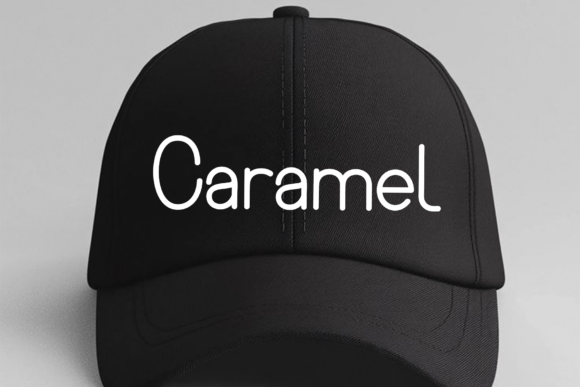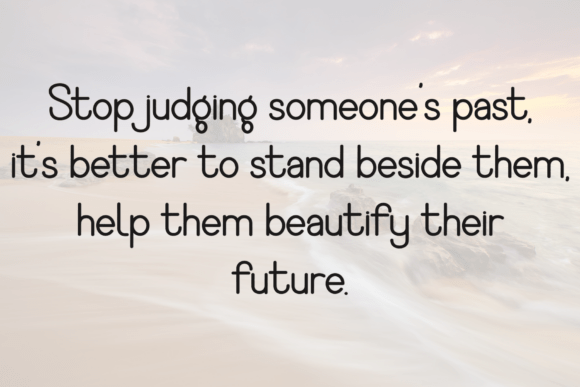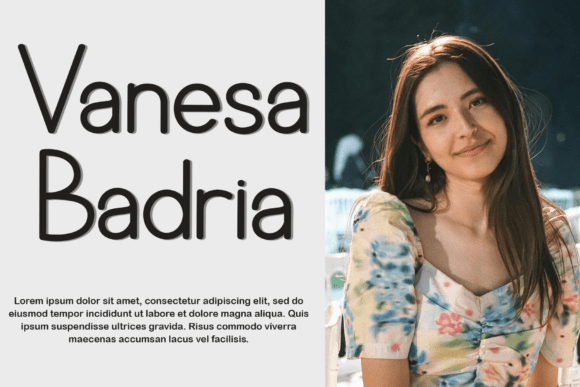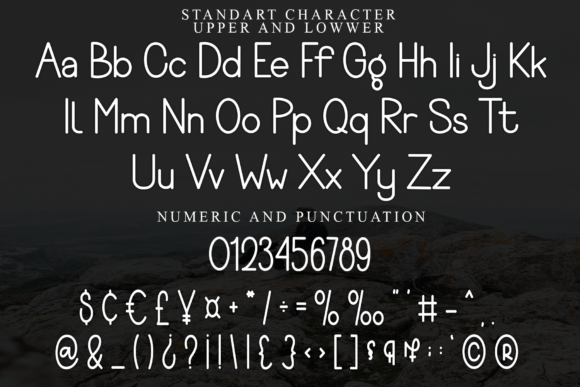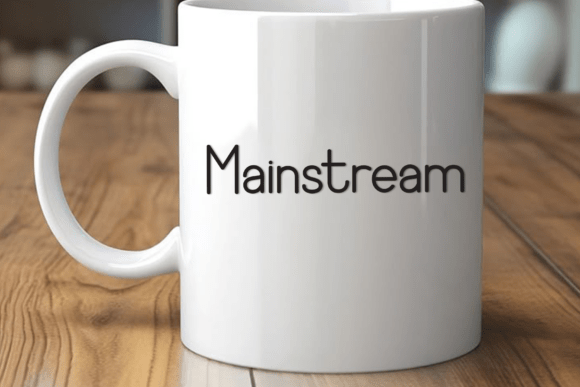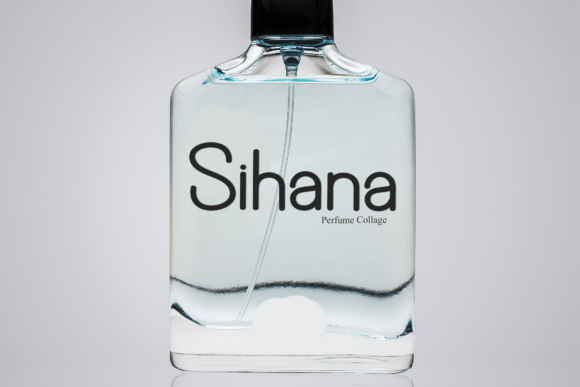
Introduction to Architect Designer Font
Architect Designer is a beautiful and eye-catching font designed with a soft, unique touch.
Its distinctive strokes give it a special character, making it meaningful and versatile for future use With various characters, itโs perfect for design projects, crafts, and other creative works.
Key Features of Architect Designer Font
Why Choose Architect Designer Font?
Architect Designer Font offers exceptional quality and versatility, making it a valuable addition to your design toolkit. Whether you’re creating for personal projects or commercial use, Architect Designer Font delivers professional results.